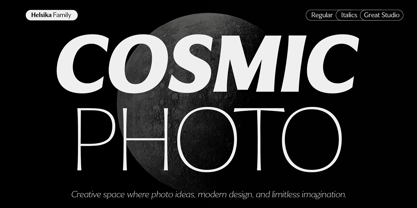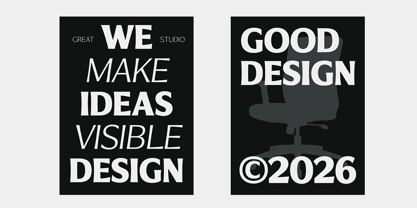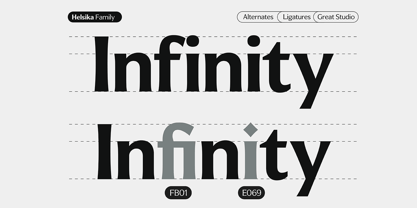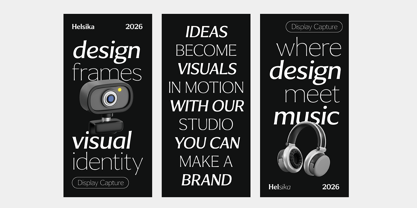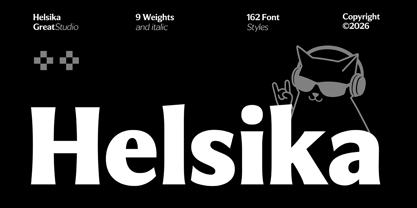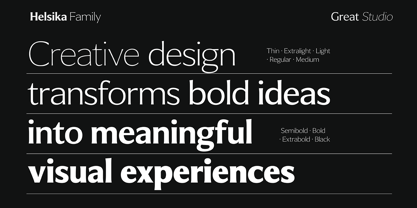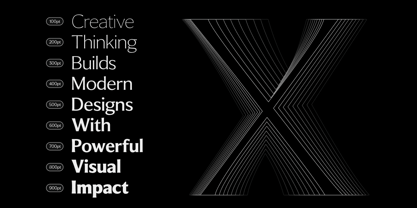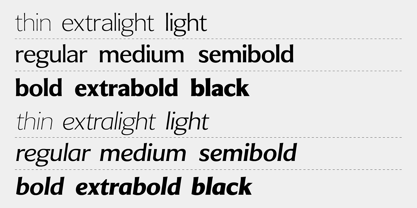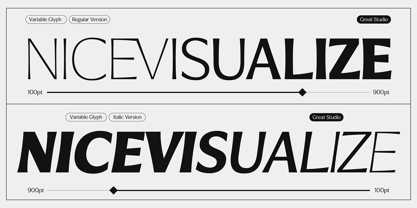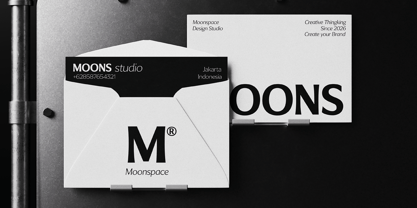
Helsika
by Great Studio
The Helsika Font Family was designed by Mulkan Nazir and published by Great Studio. Helsika contains 164 styles and family package options.
Helsika is a sophisticated contemporary serif typeface designed with a distinctive balance of high contrast, elegant proportions, and bold modern forms. Its refined letterforms combine delicate hairlines with strong, expressive strokes, creating a visual style that feels both fashion-forward and editorial.
Rather than following the traditional characteristics of classic serif typefaces, Helsika takes a more contemporary approach. Its subtle, refined terminals and dramatic contrast give the family a modern fashion-magazine aesthetic, while its heavier weights introduce a powerful and confident personality.
With 162 font styles, including italic styles, Helsika offers an extensive range of typographic possibilities. The family ranges from Thin to Black, allowing you to create everything from refined, lightweight compositions to powerful and attention-grabbing headlines.
Helsika also includes Variable Font technology, giving designers greater flexibility to explore weight variations and create precisely balanced typography. Instead of being limited to fixed styles, the Variable Font allows for smooth adjustment across the weight spectrum, making Helsika highly adaptable for both digital and print applications.
Designers: Mulkan Nazir
Foundry: Great Studio